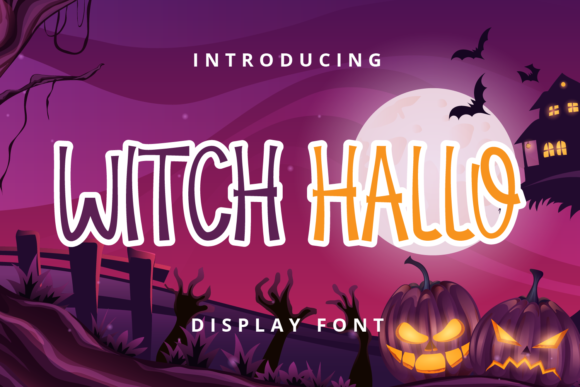
Introducing Witch Hallo, a spellbinding display font that will cast a magical charm on your Halloween designs! Its enchanting curves and eerie elegance will transform your creations into captivating works of art.
Crafted by the skilled hand of Planetz studio, Witch Hallo is not just a font; it's a haunting whisper from the realm of the supernatural. Its ethereal beauty will bewitch your audience, making them yearn for more.
With Witch Hallo, you can effortlessly conjure up spine-tingling invitations, bewitching posters, and otherworldly flyers. Its versatility knows no bounds, allowing you to weave your magical words into any medium.
Embrace the spirit of Halloween with Witch Hallo, and let its dark allure cast a captivating spell on all who behold it. It's the perfect font for conjuring up unforgettable memories this spooky season.